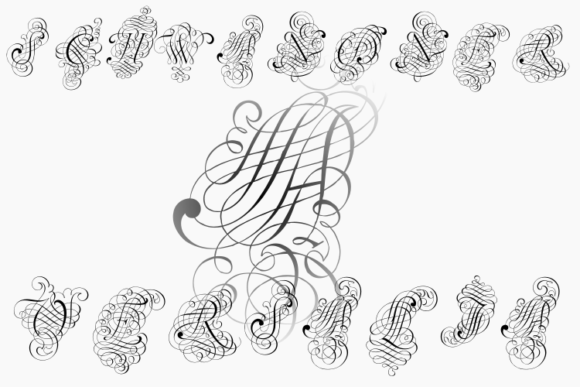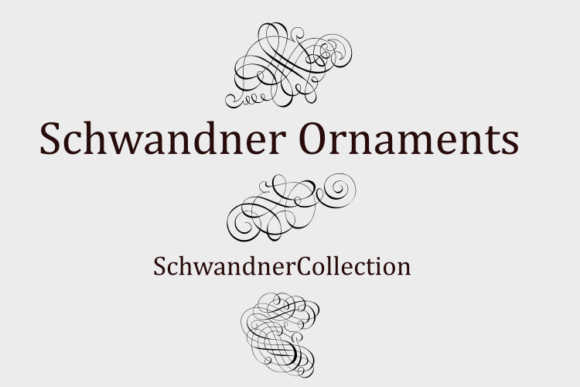
Introduction to Schwandner Font
Imagine yourself lost in a world of intricate details, where every line and curve tells a story. As a designer, you’ve probably experienced that moment when a single font can elevate your creative project from good to great. For me, that moment came when I stumbled upon the majestic Schwandner Font – a true masterpiece of historical typography.
Developed by Johann Georg Schwandner in the 18th century, this exquisite font is a revival of the intricate decorative capital known as Iza W. Its high-quality design and attention to detail make it a valuable resource for designers looking to add a touch of sophistication to their work. With its transparent background and ornate flourishes, Schwandner Font is perfect for headings, chapter initials, and even modern mixed proposals.
Key Features of Schwandner Font
- Unique, hand-drawn style with a transparent background, ideal for designers and artists.
- Comes in a single weight, with a large x-height, making it perfect for titles and headings.
Honest Review: Schwandner Font
As a designer, I’m always on the lookout for high-quality design resources that can elevate my creative projects. Recently, I came across the Schwandner Font, and I was impressed with its features and versatility.
- ✨ The font has a unique and modern aesthetic that’s perfect for contemporary design projects.
- ✨ It comes with a transparent background, making it easy to layer and customize in graphic design software.
- ✨ The font is highly customizable, allowing you to adjust the weight, size, and spacing to suit your design needs.
- ⚠️ The font may not be suitable for small text sizes, as it can become blurry and difficult to read.
- ⚠️ The font’s unique aesthetic may not appeal to all designers, so it’s essential to consider your target audience and design style.
Overall, I’m impressed with the Schwandner Font’s high quality and versatility. It’s a great addition to any designer’s toolkit, especially for those working on creative projects that require a modern and sleek aesthetic.